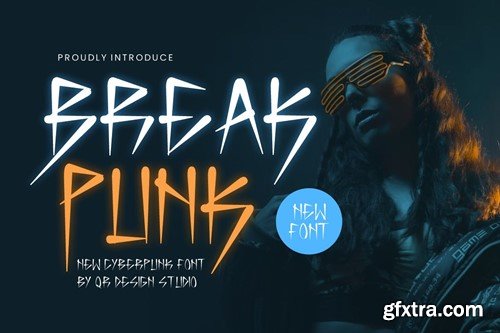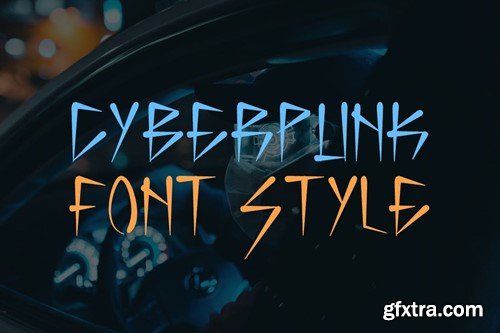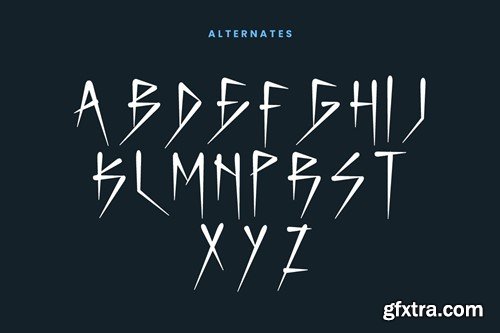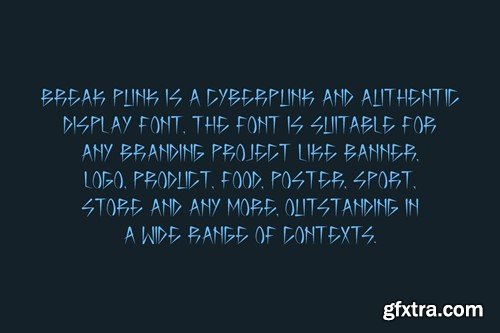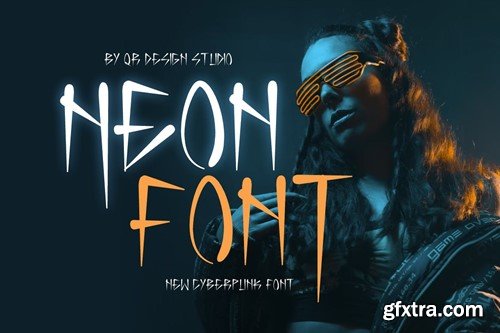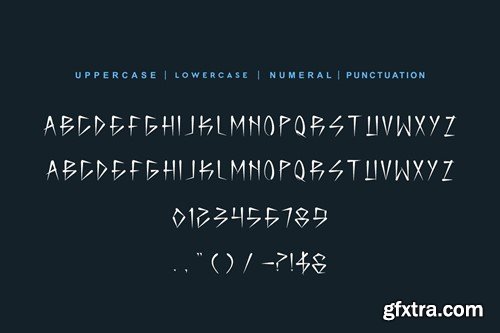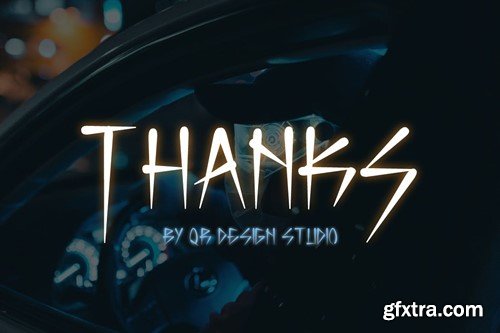
破 punk - 灯光 & 未来 punk 字体 UFHBYWP
Break Punk - Neon & Cyberpunk Font UFHBYWP
Break Punk - Neon & Cyberpunk Font
Break Punk - Neon & Cyberpunk Font is a modern and authentic display font. The font is suitable for any branding project like poster, logo, sport, and many more. Outstanding in a wide range of contexts.